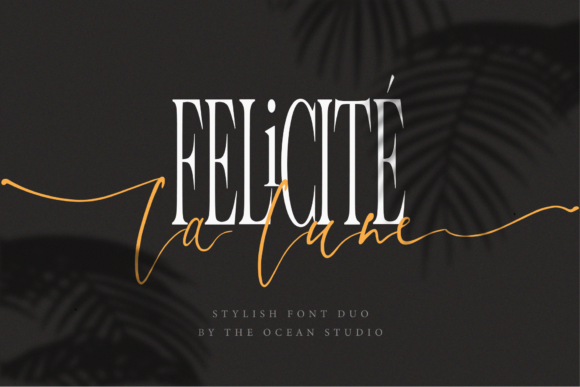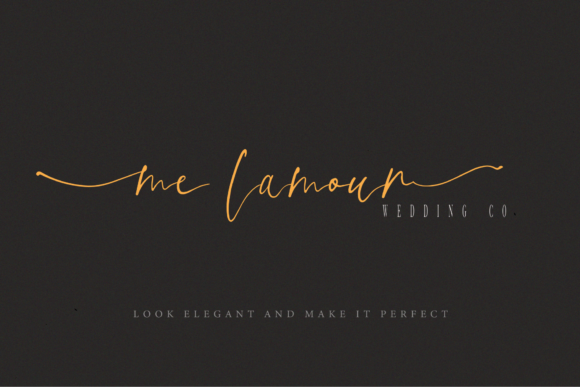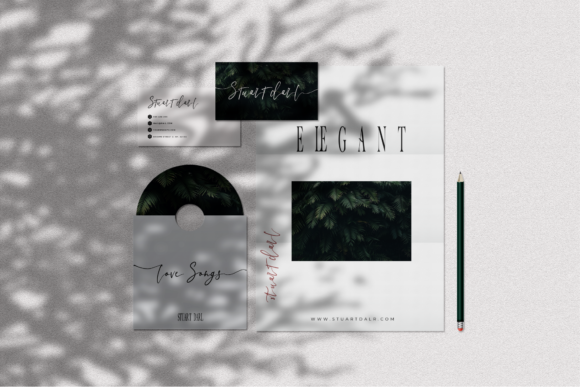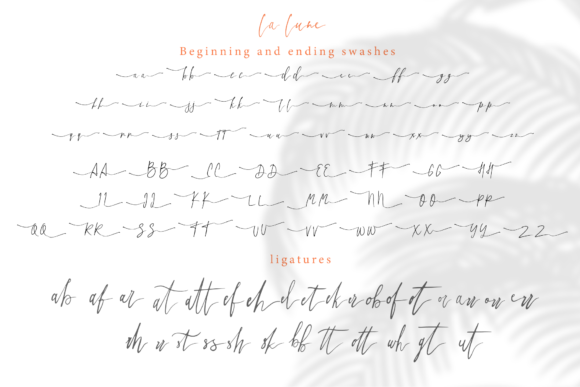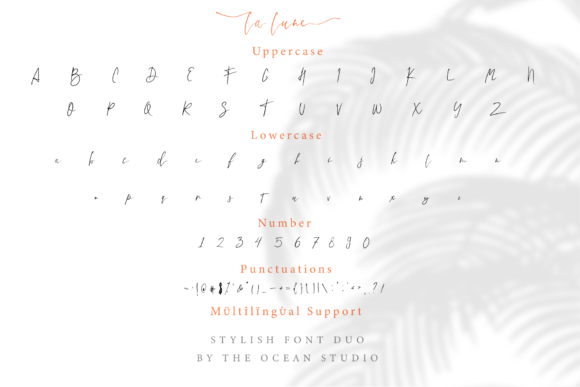
HomeScript FontsLa Lune Duo Font Script Fonts La Lune Duo Font FacebookXPinterestWhatsApp La Lune Duo Font Poster 2 La Lune Duo Font Poster 3 La Lune Duo Font Poster 4 La Lune Duo Font Poster 5 La Lune Duo Font Poster 6 La Lune Duo Font Poster 7 About La Lune Duo Font La Lune is a beautiful and elegant font duo that will turn your next crative project into a true standout! DOWNLOAD ON CREATIVE FABRICAThis font is sold and delivered by Creative Fabrica. Font Canyon may earn a commission if you buy through this link. People also explored Queensytrix Signature Script Font Glamour Font Madness Font Butter Sauce Font Vintage Font Sponge Freckles Font Starstoles Font Primal Signature Font Mistery Latter Font 319 0 TagsLa Lune Duo Font Previous articleSimple Happiness FontNext articleKarllistic Script Font LEAVE A REPLY Cancel reply Comment: Please enter your comment! Name:* Please enter your name here Email:* You have entered an incorrect email address! Please enter your email address here Website: Save my name, email, and website in this browser for the next time I comment. Personal Use Free Manbow Personal Use Free Read more about this font Baby Cute Personal Use Free Read more about this font Street Cred Personal Use Free Read more about this font Sweet Cake Personal Use Free Read more about this font BLOG Where to Buy American Fonts Online in 2024 Where to Buy American Fonts Online: The Ultimate Guide for 2024 Looking for the perfect American font to elevate your design projects? You're in the... Best Fonts for YouTube Videos: Make Your Thumbnails Stand Out Free vs Paid Fonts: Why Investing in Premium Fonts Is Worth It Free Fonts Risk: Why Free Fonts Can Be Dangerous for Designers